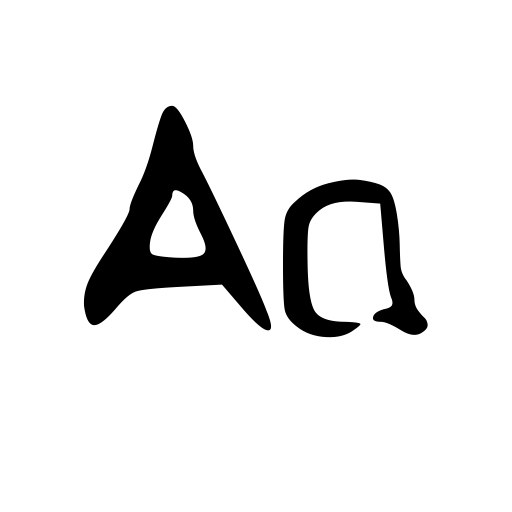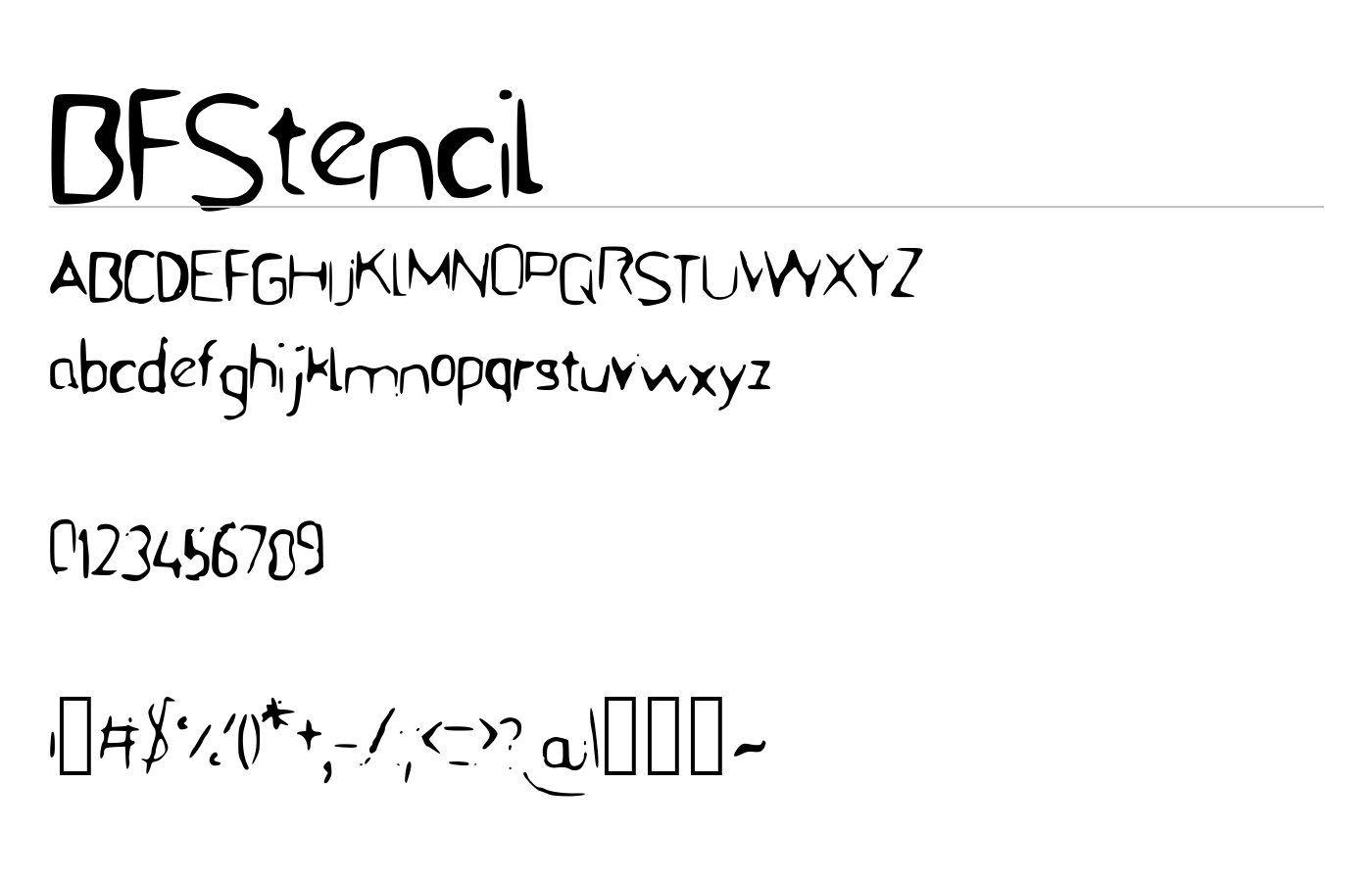
BFStencil is a quirky, hand-drawn sans serif font with uneven strokes and playful irregular shapes, giving it an informal, creative vibe. Its narrow, tall letterforms and whimsical style make it ideal for artistic projects or casual branding that wants a unique, approachable personality. This font works best in eye-catching headlines, posters, or designs that benefit from a fun, imperfect handwritten feel.
BFStencil Font